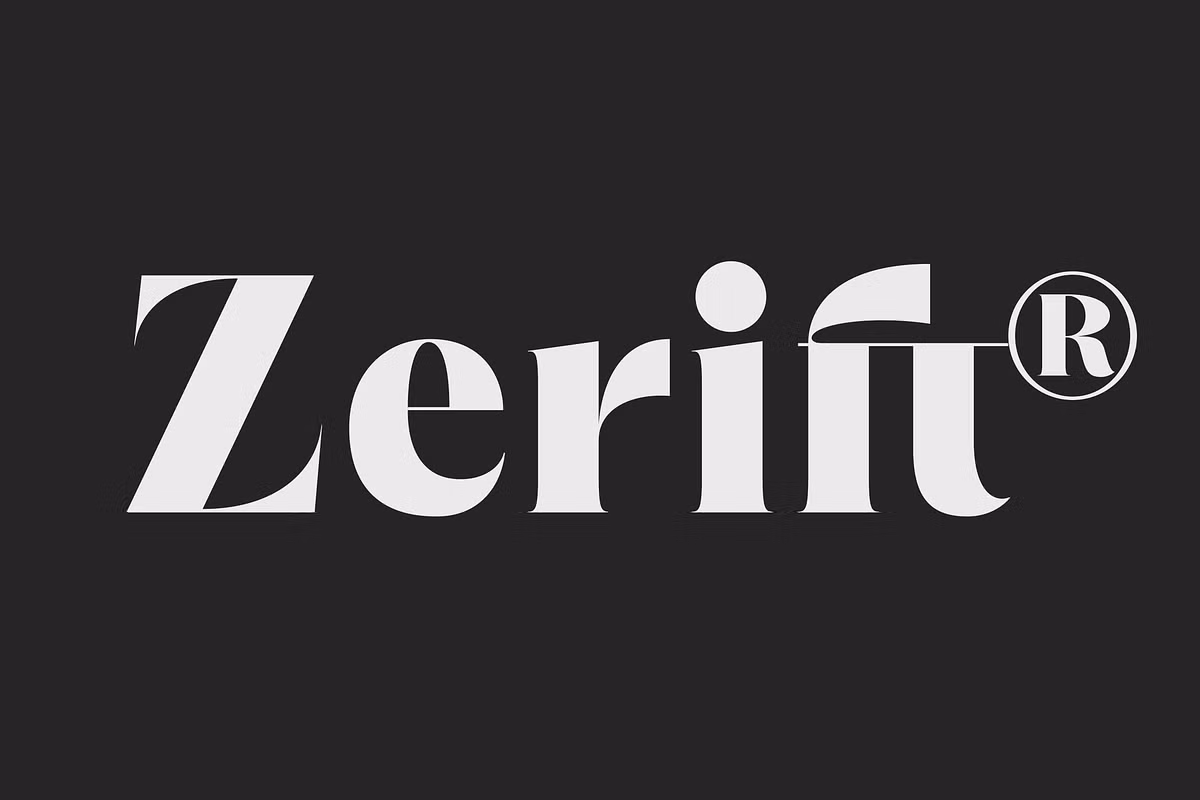
Zerift Font, the new label Zerift epitomates the beauty of simplicity with a touch of the now. This fonts is perfectly designed to capture attention due to balance between thick and thin lines as well as fine details and is ideal for use in premium and exclusive products. Just like a suit that is made to order each of the characters has its power paired with elegance as well as conservatism with creativity.